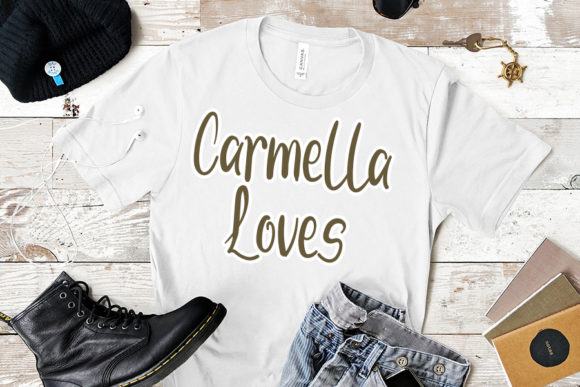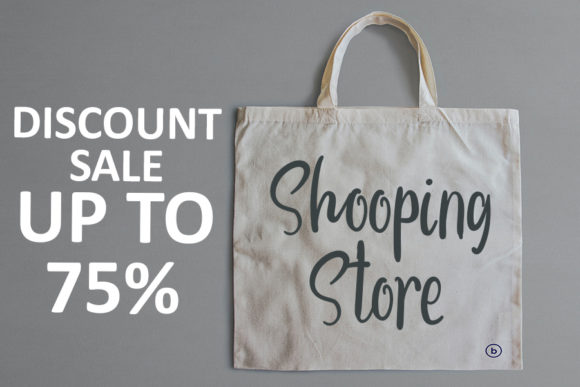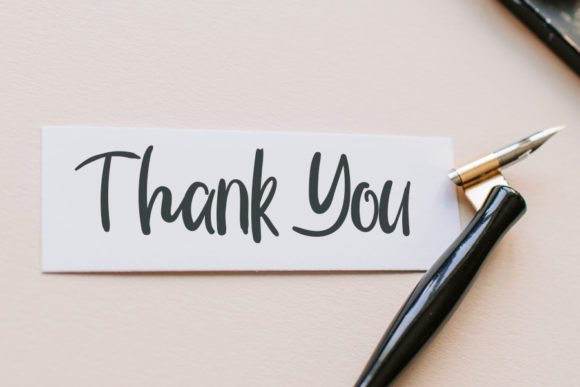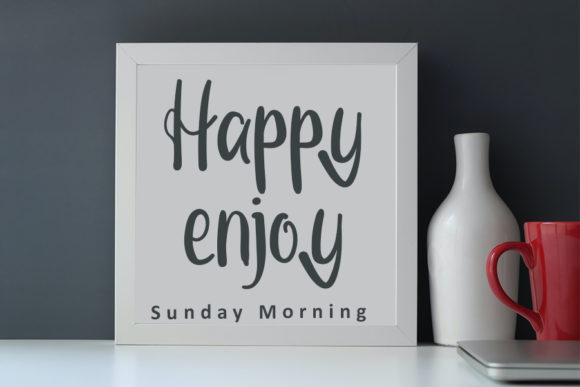
Introducing Apparel Stock Font: The Sweet and Natural Handwritten Font
Are you a designer or crafter looking for a unique and timeless font to elevate your designs? Look no further than Apparel Stock Font, a sweet and natural handwritten font that is sure to capture your heart. With its incredibly distinct style, Apparel Stock Font is the perfect choice for creating lovely designs that stand out from the crowd.
The Charm of Apparel Stock Font
Apparel Stock Font is a beautifully crafted handwritten font that exudes a sense of warmth and personality. Its natural and effortless style makes it perfect for a wide range of design projects, from fashion and beauty to lifestyle and crafts. The font’s unique character is sure to add a touch of elegance and sophistication to any design, making it a must-have for designers and crafters alike.
Key Features of Apparel Stock Font
- Sweet and Natural Style: Apparel Stock Font has a sweet and natural style that is perfect for creating designs that are both elegant and approachable.
- Incredibly Distinct: The font’s unique character is incredibly distinct, making it stand out from other fonts and adding a touch of personality to any design.
- Timeless Appeal: Apparel Stock Font has a timeless appeal that ensures your designs will never go out of style.
- Versatile: The font is versatile and can be used for a wide range of design projects, from fashion and beauty to lifestyle and crafts.
Why Choose Apparel Stock Font?
There are many reasons why Apparel Stock Font is the perfect choice for designers and crafters. Here are just a few:
- Easy to Read: The font is easy to read, making it perfect for body text and other large blocks of text.
- Highly Legible: Apparel Stock Font is highly legible, even at small sizes, making it perfect for use on a wide range of materials, from business cards to billboards.
- Unique Character: The font’s unique character ensures that your designs will stand out from the crowd and capture the attention of your audience.
- Supports Multiple Languages: Apparel Stock Font supports multiple languages, making it a great choice for designers and crafters who work with international clients.
- Fashion and Beauty Designs: Use Apparel Stock Font to create stunning fashion and beauty designs, from logos and branding materials to packaging and advertising.
- Lifestyle and Craft Designs: The font is perfect for lifestyle and craft designs, including invitations, greeting cards, and other paper crafts.
- Signage and Display Materials: Apparel Stock Font is highly legible and can be used for signage and display materials, including billboards, banners, and posters.
Apparel Stock Font is a sweet and natural handwritten font that is sure to capture your heart. With its incredibly distinct style and timeless appeal, it’s the perfect choice for designers and crafters looking to create lovely designs that stand out from the crowd. Whether you’re working on a fashion and beauty design, a lifestyle and craft project, or signage and display materials, Apparel Stock Font is the perfect choice.